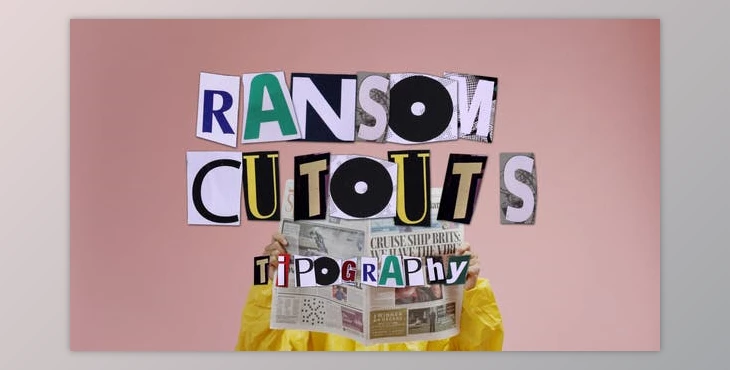
Ransom Cutouts Typeface - AE Project VH-46427067: The After Effects template features cutout newspaper and magazine letters, numbers, symbols, and symbols along with a stop-motion video. It can be used to create animated text to add to your video. The video tutorial comes with. Download now! No plugins are needed.
Every character can't be changed as they are all pre-rendered, and you can drag and drop the desired words. It comes with six pre-written texts, "100k Followers" - I am in love with you - It's a celebration.